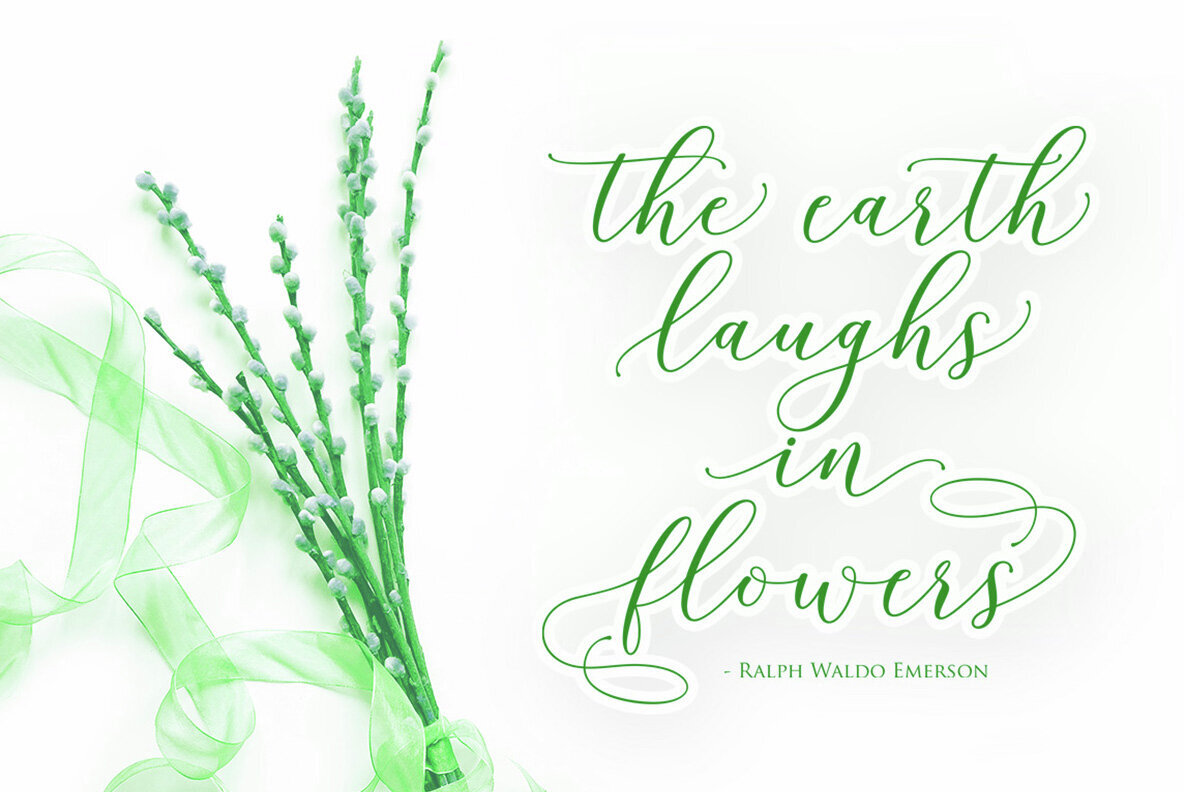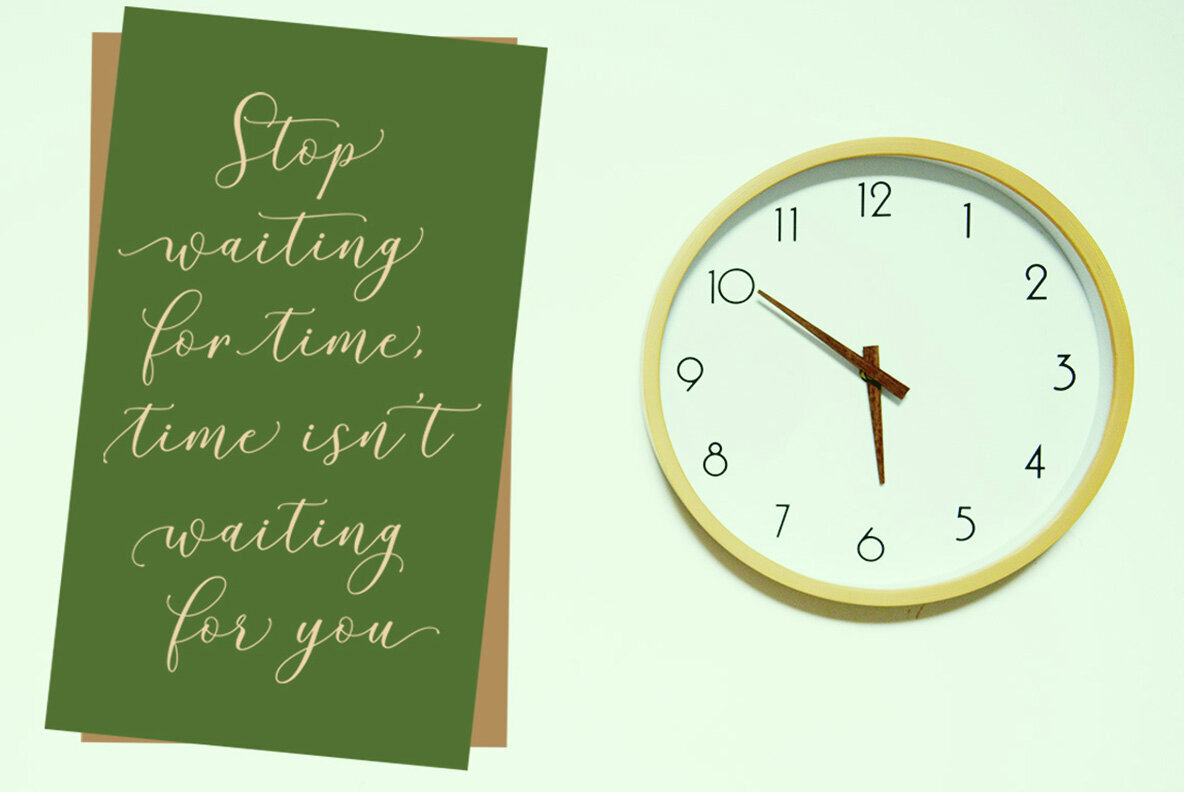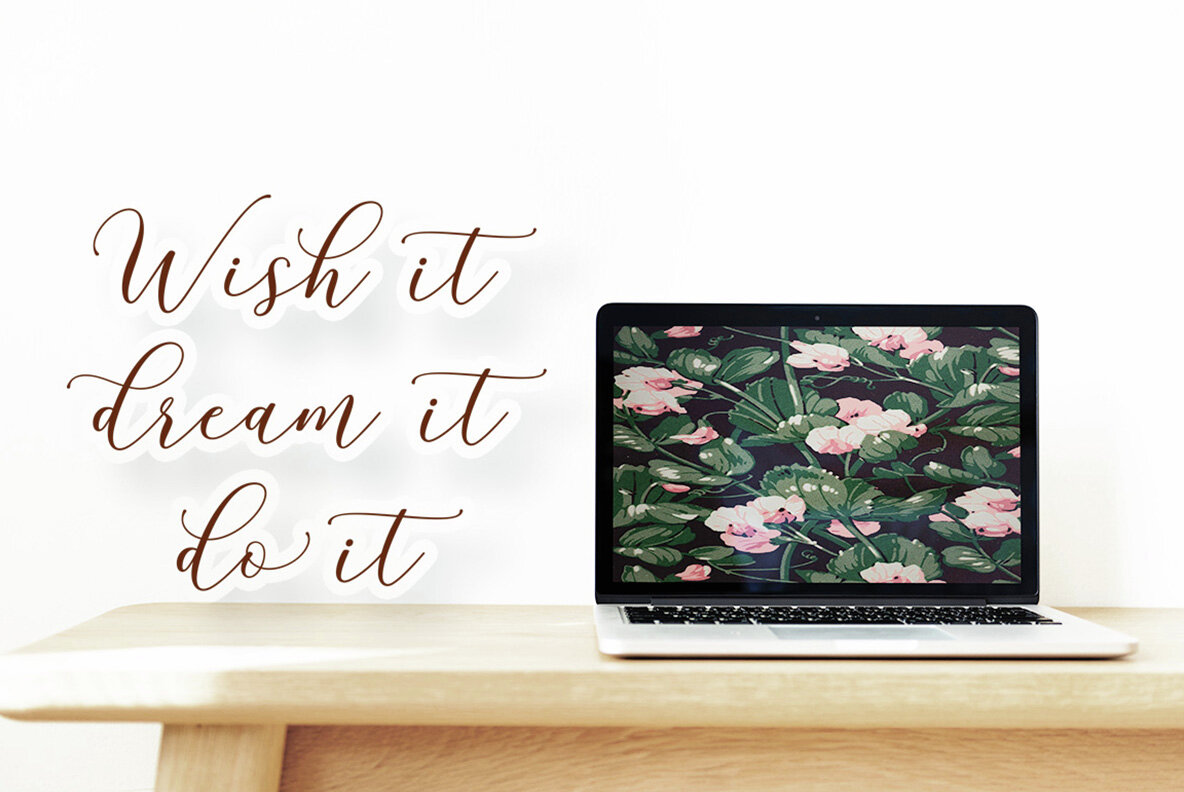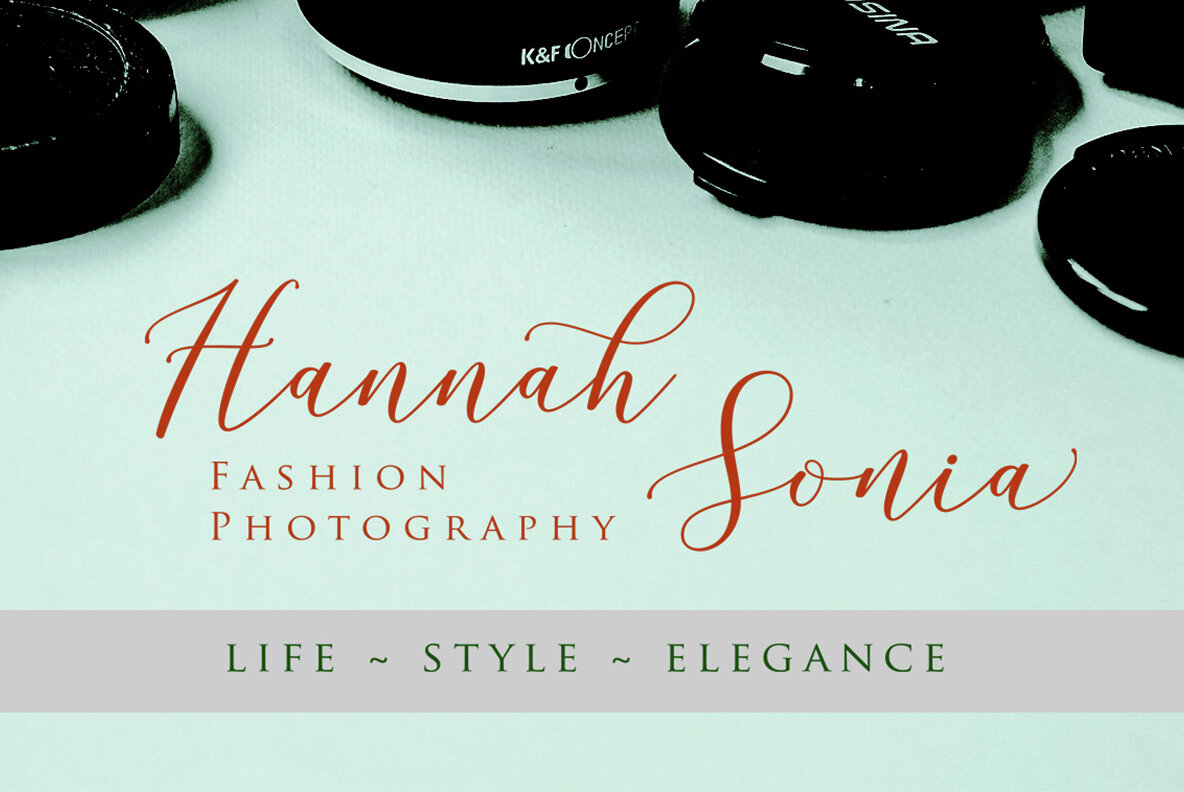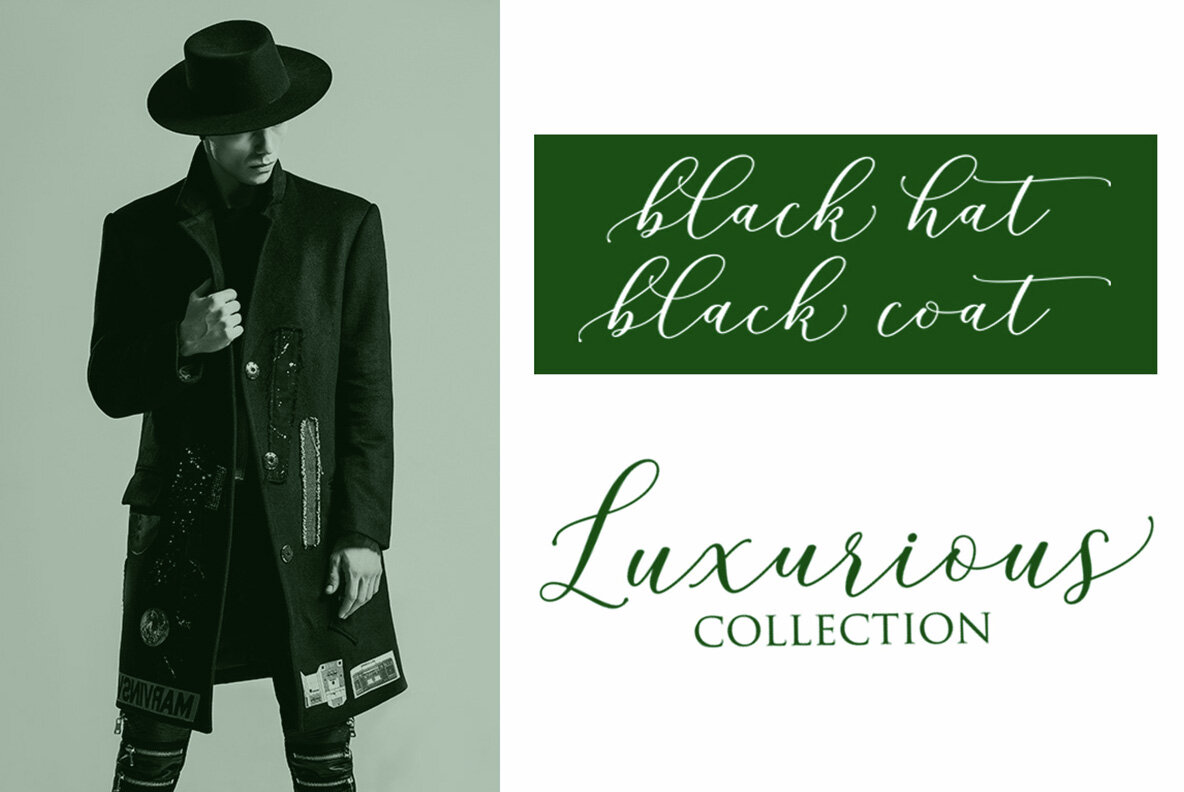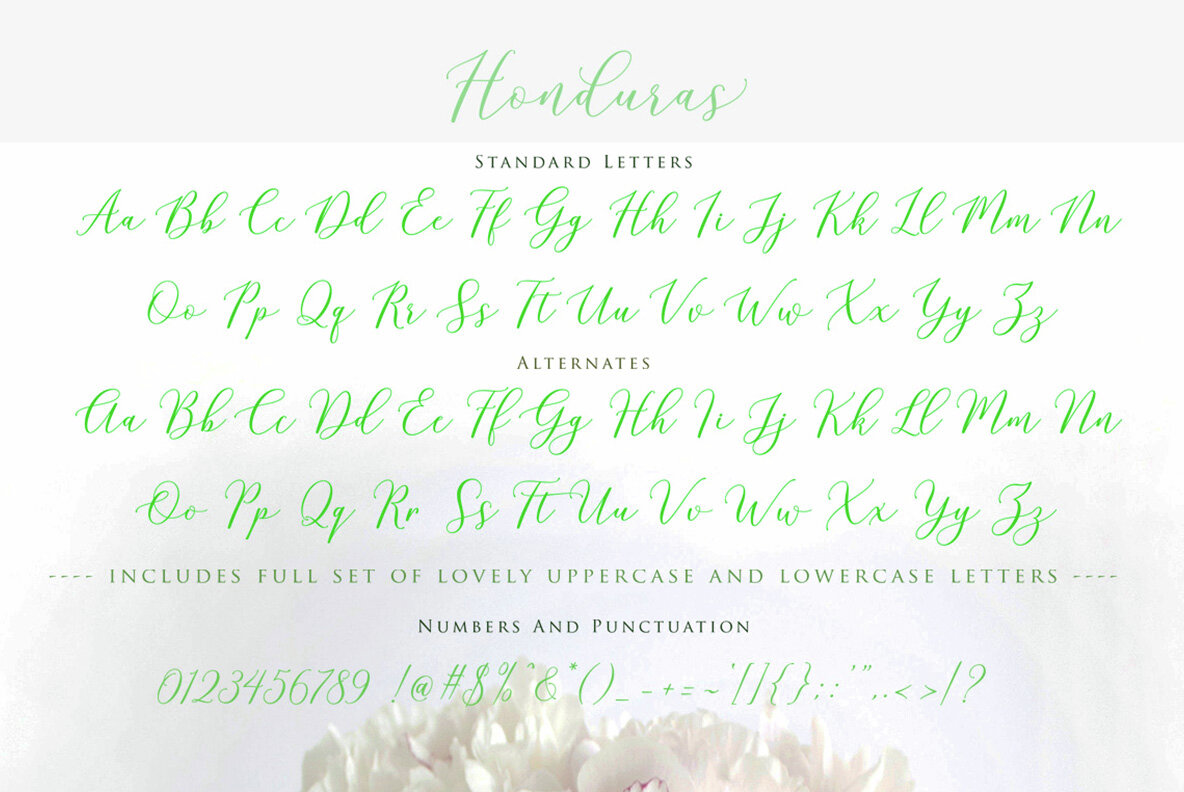
Honduras Script Font
Honduras Script is a decorative cursive font that brings an elegant, handwritten flair to any project. With its smooth, flowing strokes and artistic flourishes, this font is perfect for adding a touch of sophistication and style. The font emulates calligraphic styles, making it ideal for designs that require a personal, yet polished look. Each letter is designed with attention to detail, ensuring that the script maintains a consistent and graceful flow across your creations.
Perfect for a variety of applications, Honduras Script shines in projects like wedding invitations, branding initiatives, and logo designs. Its versatility allows it to enhance the visual appeal of any design that could benefit from a refined touch. The font's unique curves and stylistic details not only captivate the eye but also convey a sense of elegance that complements formal and creative works alike. Whether you're creating professional branding or preparing a special event, Honduras Script offers the perfect blend of artistry and function.